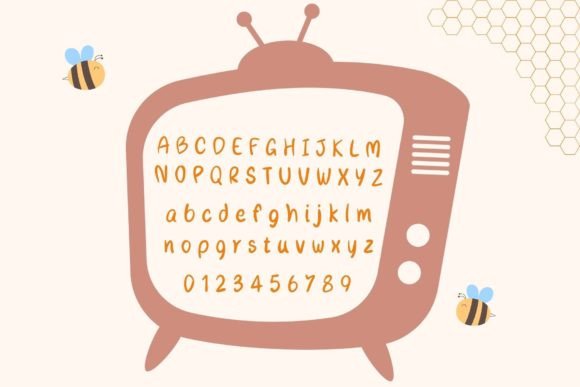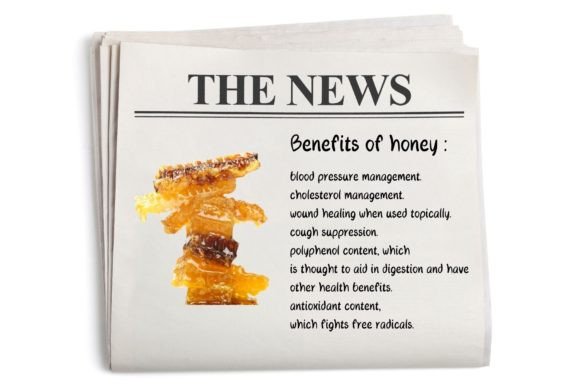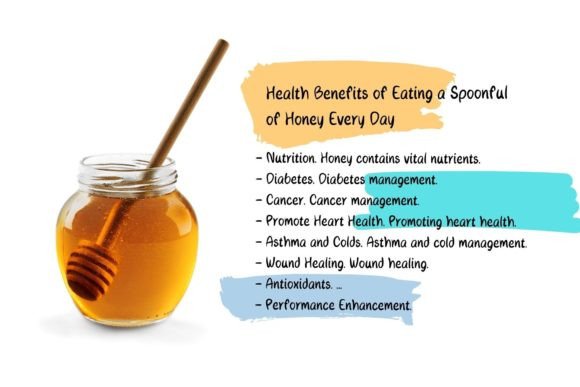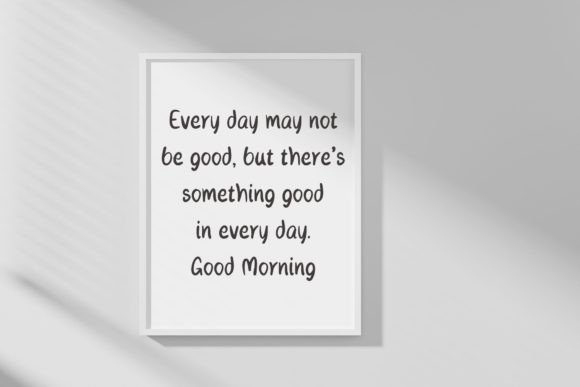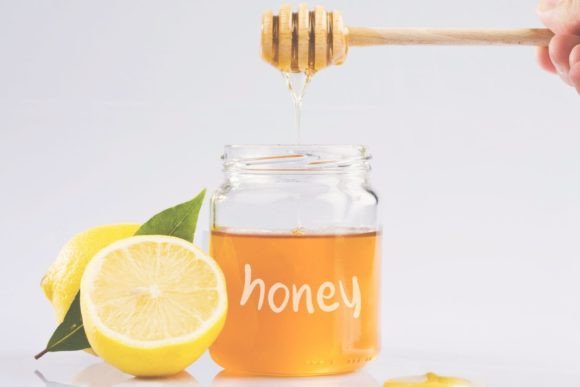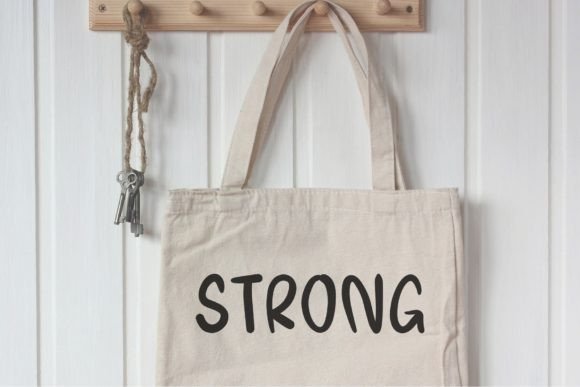
Discover the Sweet Charm of the Honey Bee Font
Have you ever stumbled upon a beautiful handwritten font that instantly sparks your creativity? Perhaps it was a quote on a coffee shop wall, a friend’s Instagram post, or a quirky label on a product you love. Whatever the case, it’s those small moments that remind us of the power of typography in inspiring our imagination and bringing ideas to life.
For designers, discovering a new font can be like finding a hidden treasure. That’s exactly what the Honey Bee Font is – a treasure trove of handwritten charm that can elevate any project from ordinary to extraordinary. Perfect for digital note-taking, planners, and more, this versatile font is a must-have for anyone looking to add a touch of personality to their work.
Honey Bee Font Key Features
- Font Family: Honey Bee Font is a sans-serif font family designed for digital use.
- Unique Characteristics: The font features a unique blend of modern and playful elements, with rounded edges and a friendly feel.
Honey Bee Font Review
I recently had the chance to work with the Honey Bee Font, and I have to say, it’s a mixed bag. Let’s start with what works well ✨. The font’s whimsical and playful nature makes it perfect for creating a warm and inviting atmosphere in any design project. The script-like style is particularly effective in conveying a sense of friendliness and approachability. Additionally, the font’s high legibility makes it suitable for both digital and print media.
Now, let’s talk about the limitations ⚠️. While the font is certainly charming, its versatility is somewhat limited. The font’s overall aesthetic is quite specific, making it difficult to use in more formal or professional settings. Furthermore, the font’s script-like style can make it challenging to read in certain situations, particularly at smaller font sizes.
Key Points:
- ✨ Whimsical and playful nature
- ✨ High legibility
- ⚠️ Limited versatility
- ⚠️ Challenging to read at smaller font sizes
Overall, the Honey Bee Font is a great choice for designers looking to create a warm and inviting atmosphere in their projects. However, its limitations should be taken into consideration when deciding whether or not to use it.
Tips for Getting the Most Out of the Honey Bee Font
Use the Honey Bee font for whimsical and playful designs.
Pair the font with bright and bold colors for maximum visual impact.
Experiment with different font sizes and styles to create a unique look.
The Honey Bee font is ideal for:
Children’s book covers and illustrations.
Wedding invitations and decorations.
Food and beverage branding.
Any design that requires a touch of whimsy and playfulness.